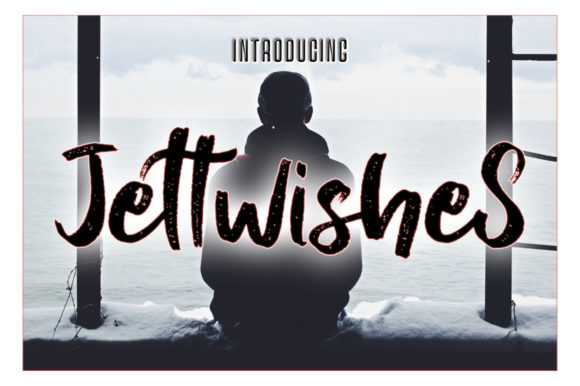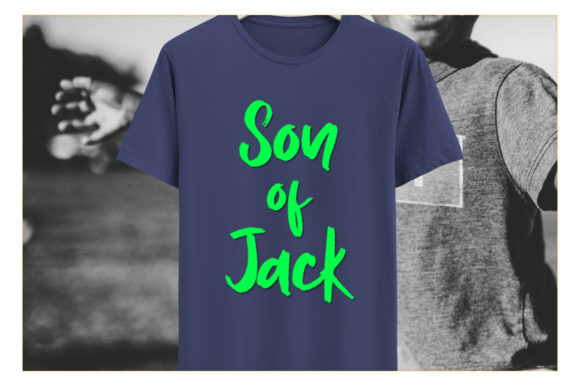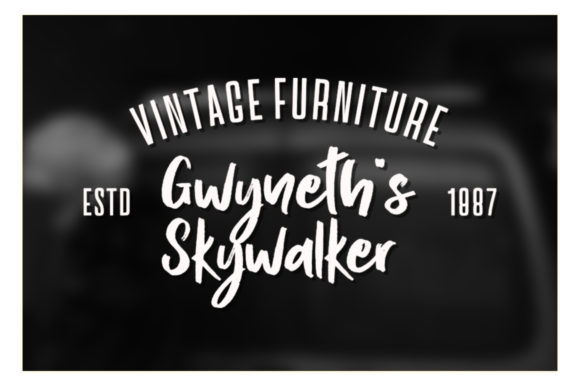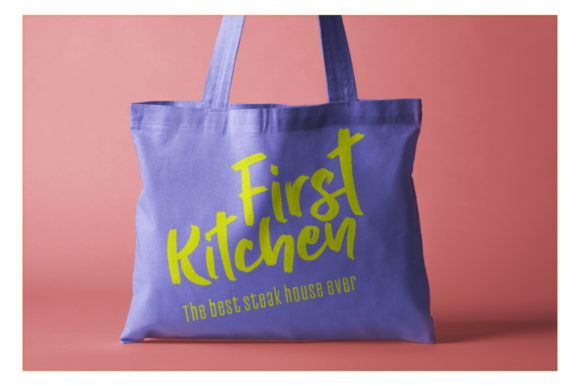
HomeScript FontsJettwishes Font Script Fonts Jettwishes Font FacebookXPinterestWhatsApp Jettwishes Font Poster 2 Jettwishes Font Poster 3 Jettwishes Font Poster 4 About Jettwishes Font Jettwishes is a fun and bold handwritten font that will inspire any new design project with its authentic feel! DOWNLOAD NOW People also explored Boo Haw Font Break Walkout Font Allexa Font Brokenlove Font Howling Sinister Font Amara Font Magic Romance Font Wonderland Font Mini Puzzle Font 323 0 TagsJettwishes Font Previous articleSoxcel Flange FontNext articleThe Razels Font LEAVE A REPLY Cancel reply Comment: Please enter your comment! Name:* Please enter your name here Email:* You have entered an incorrect email address! Please enter your email address here Website: Save my name, email, and website in this browser for the next time I comment. Personal Use Free Whitelight Personal Use Free Read more about this font Hello December Personal Use Free Read more about this font Heartburn Personal Use Free Read more about this font Whoa Personal Use Free Read more about this font BLOG Where to Buy American Fonts Online in 2024 Where to Buy American Fonts Online: The Ultimate Guide for 2024 Looking for the perfect American font to elevate your design projects? You're in the... Best Fonts for YouTube Videos: Make Your Thumbnails Stand Out To increase your work productivity, choose the most readable fonts. Top 10 Handwritten Fonts That Elevate Your Designs